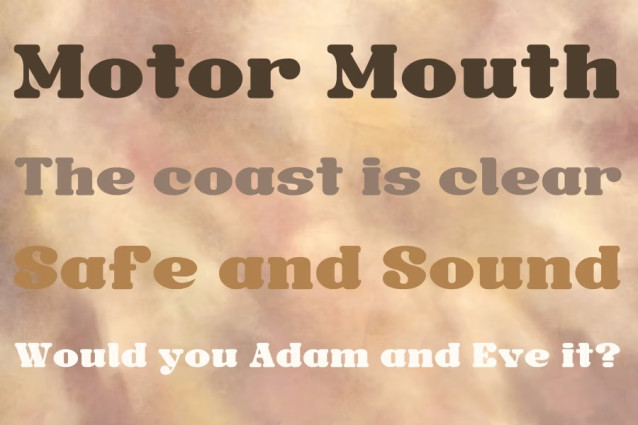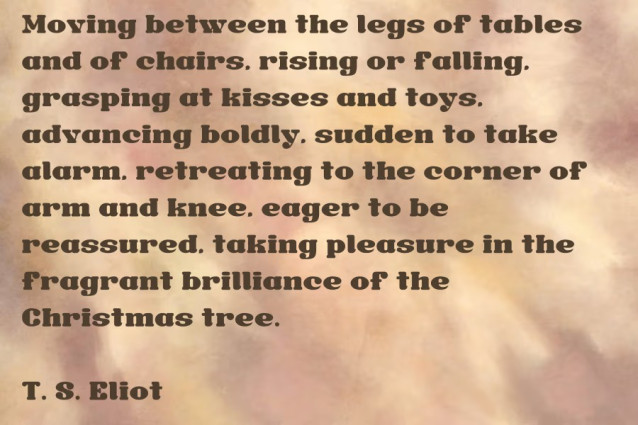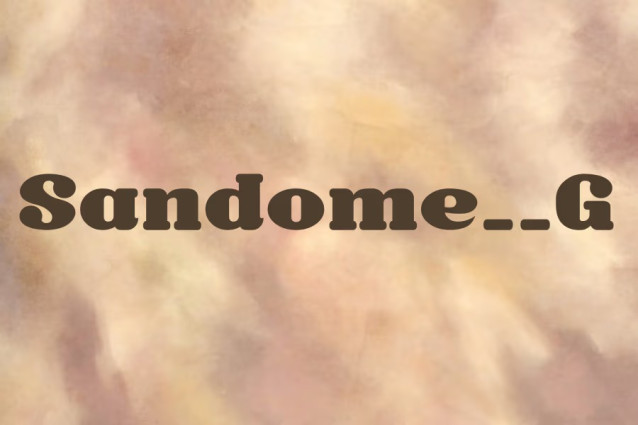
Sandome__G Font
Sandome__G Font is a cheerful display typeface with robust, rounded letterforms and thick strokes. The friendly shapes and soft curves evoke a retro feel reminiscent of the 1970s, while the generous spacing and playful rhythm give it a modern personality.
Each character features smooth curves and warm proportions, with gently flared terminals and open counters that enhance legibility at large sizes. The bold weight and consistent stroke width make the letters feel substantial and inviting, ideal for capturing attention without being aggressive.
Sandome__G shines in applications that call for personality and charm such as branding, posters, packaging, headlines, invitations and social media graphics. Its rounded forms and lively presence make it perfect for food and beverage labels, children’s products, greeting cards and any project that benefits from a touch of nostalgia and fun.